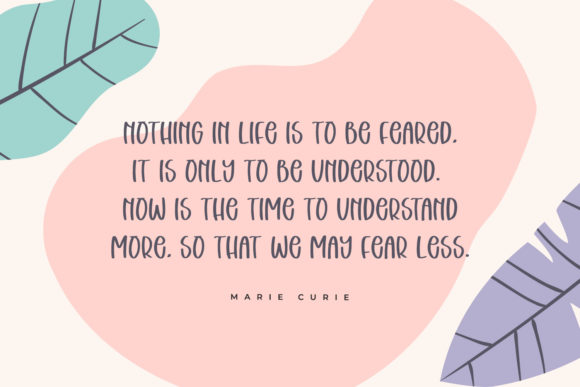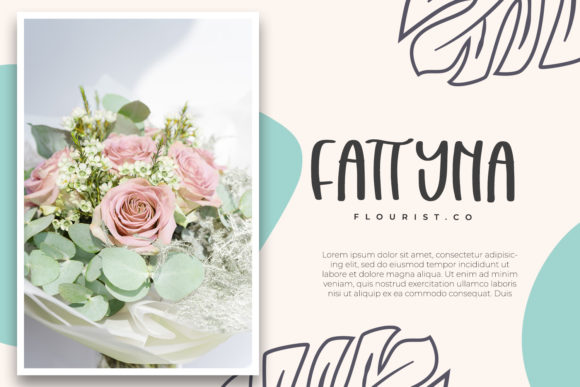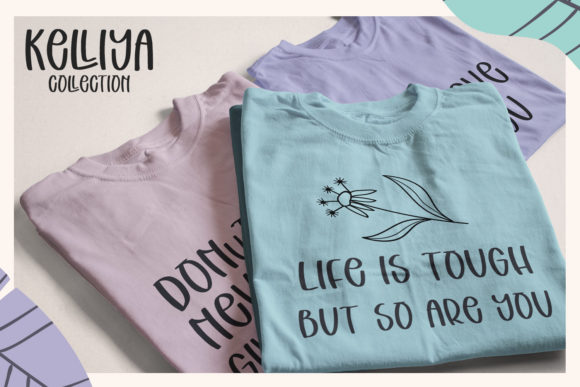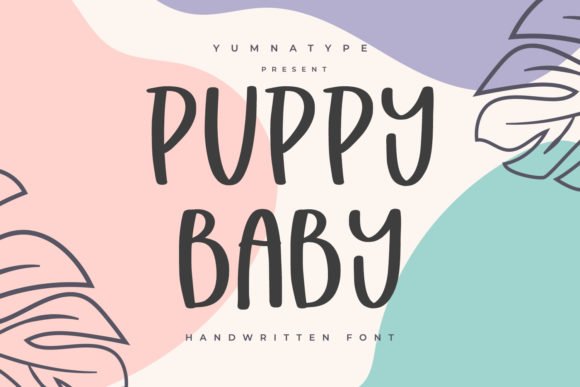
Introduction to Puppy Baby Font
Puppy Baby is a friendly and cute handwritten font.
👤 Author Yumna_Type
This font is perfect for animal themed designs, especially when combined with bright colors .
Why Choose Puppy Baby Font?
Puppy Baby Font offers exceptional quality and versatility, making it a valuable addition to your design toolkit. Whether you’re creating for personal projects or commercial use, Puppy Baby Font delivers professional results.